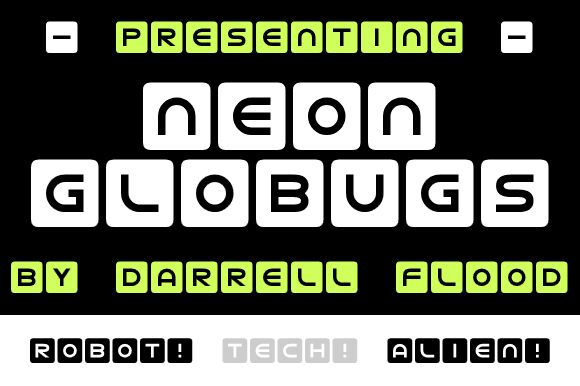
Neon Globugs
Neon Globugs font by Hawtpixel is a futuristic display font in expanded width. The geometric letter endings and minimal line segments give Neon Globugs its technological look. With no curves in mind, this typeface’s letterforms are all shaped using the initials I, V, and W. The bold and extended letters give it the ability to catch attention from afar.